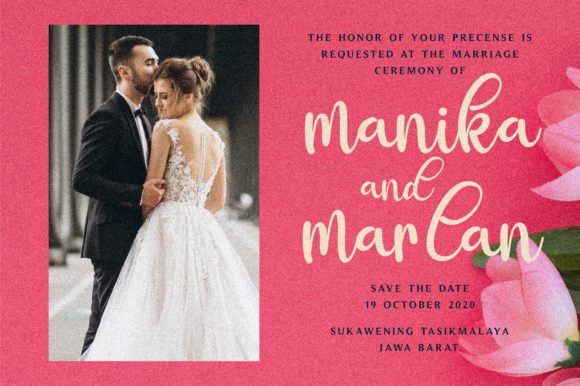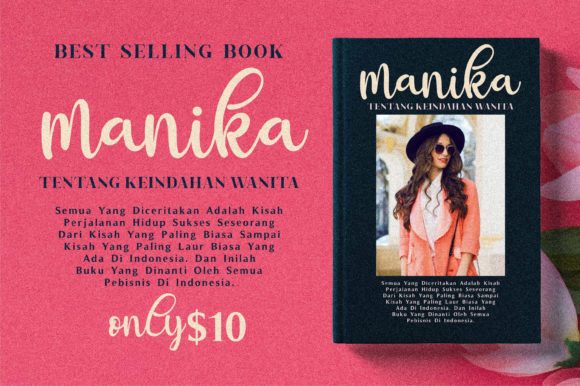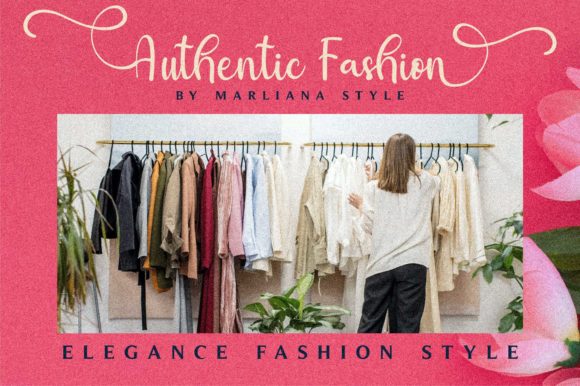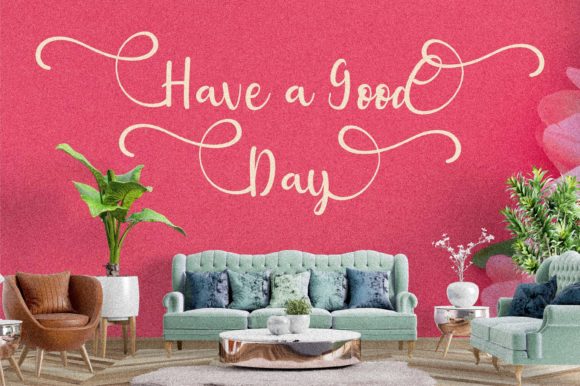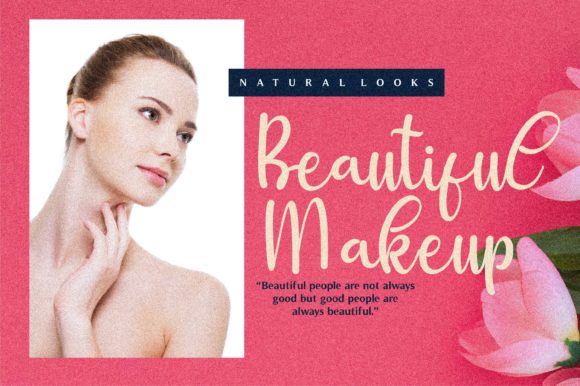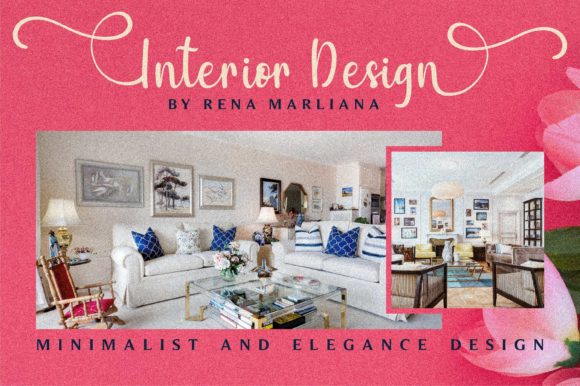
Introduction to Manika Font
Do you remember the feeling of excitement when you finally found the perfect font for your creative project? The one that elevates your design and makes it truly special? For many designers, this moment is a game-changer. It’s what takes their project from good to great.
Today, we’re excited to introduce you to the Manika Font, a fun and friendly handwritten font that’s sure to bring a smile to your face. With its high-quality design and transparent background, this font is a design resource that’s hard to resist. And the best part? It’s available for free download, making it an accessible resource for designers of all levels.
Key Features of Manika Font
- High-quality design: Manika Font is designed to be a versatile and modern font, suitable for various creative projects.
- Transparent background: Manika Font has a transparent background, allowing for easy integration with images and other design elements.
- High-resolution design: Manika Font is designed at a high resolution, making it suitable for use in a variety of applications, including print and digital media.
- Unique characteristics: The font features a unique blend of modern and vintage elements, making it a standout choice for designers looking to add some personality to their work.
Honest Review: Manika Font
I recently stumbled upon the Manika Font and I must say, it’s a fantastic addition to any designer’s toolkit. The high-quality font is perfect for creating visually appealing and professional-looking designs, whether it’s for a creative project or a simple text-based layout.
- ✨ Unique and elegant design style that’s perfect for headings and titles.
- ✨ Supports both Latin and Cyrillic scripts, making it a great option for international design projects.
- ✨ Features a transparent background, allowing for seamless integration with other design elements.
- ⚠️ Limited font sizes and styles, which may not be ideal for complex design projects.
- ⚠️ Not as extensive a character set as some other fonts, which may be a concern for designers who need to include special characters.
Overall, I’m quite impressed with the Manika Font. While it may have its limitations, it’s a great resource for designers who need a high-quality, free font for their creative projects.
Manika Font
The Manika Font is a versatile design resource that can be used for a variety of creative projects, including logos, social media graphics, and business cards. Its high-quality design and transparent background make it a popular choice for designers.
To get the most out of the Manika Font, consider the following tips: use it in conjunction with other design elements to create a visually appealing design, experiment with different font sizes and colors to create contrast and emphasis, and use the transparent background to create a modern and sleek look.
Can I use the Manika Font in combination with other design elements?
The Manika Font is designed to be versatile and can be used in combination with other design elements, such as graphics, images, and textures. You can experiment with different combinations to create unique and visually appealing designs for your creative project.